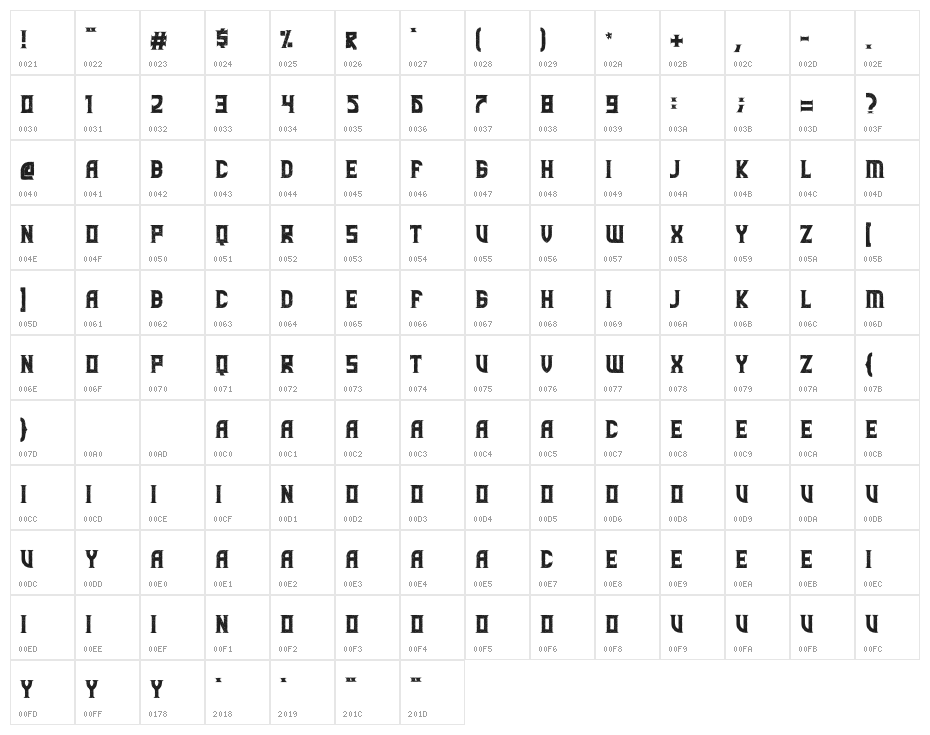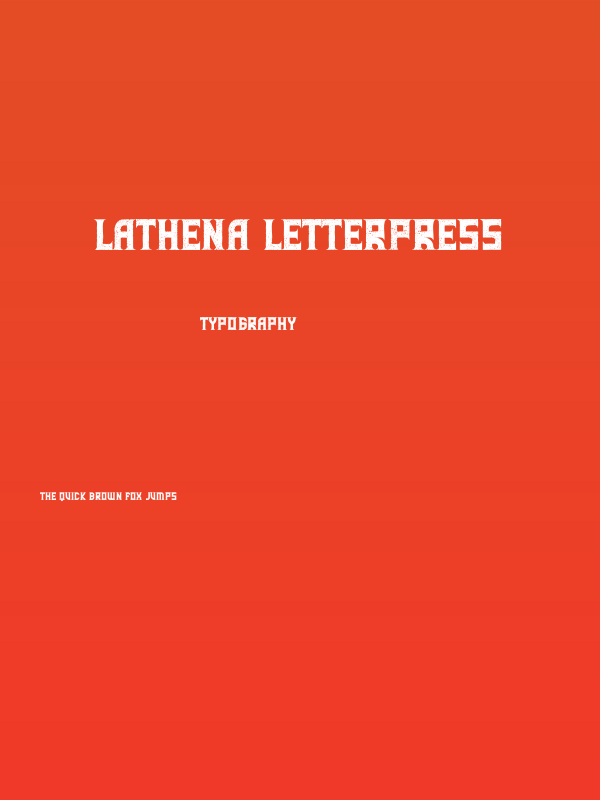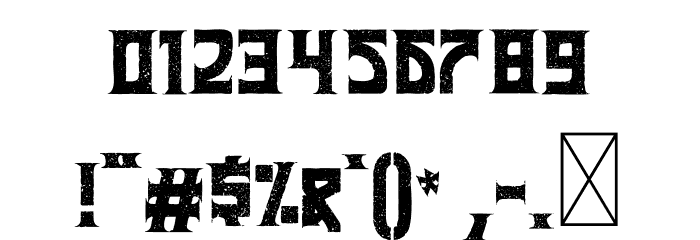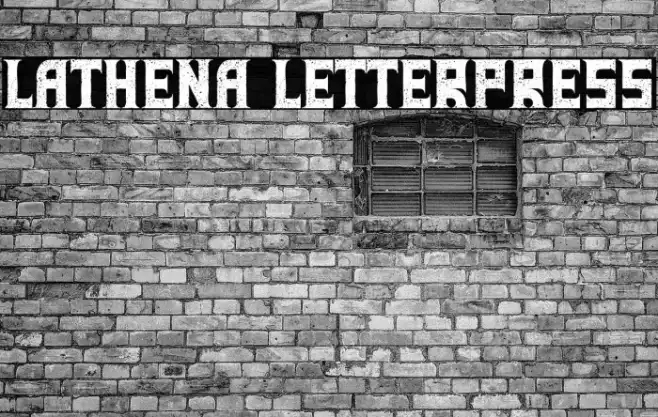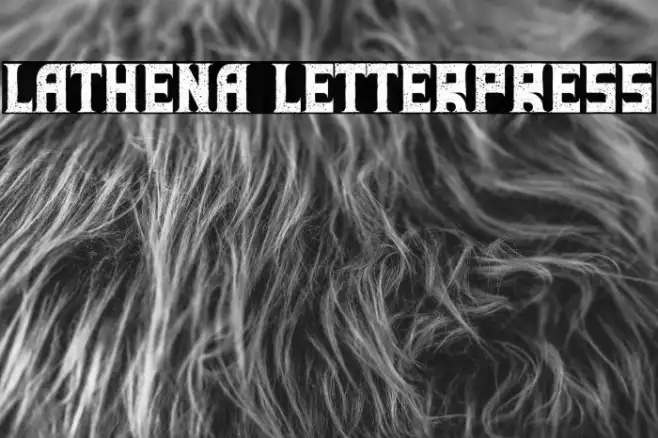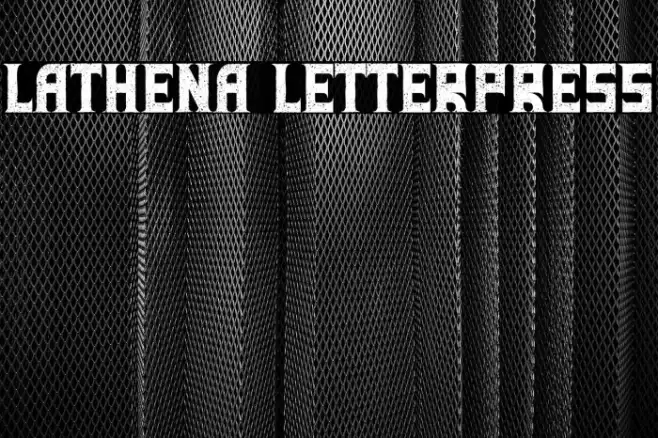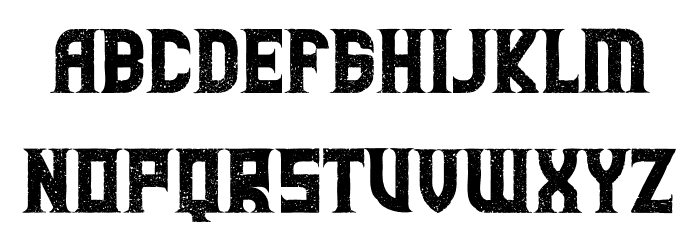
Lathena Letterpress Font
Lathena Letterpress Description
This font features a bold, distressed style with a vintage letterpress appearance. Each character is designed with a textured, worn effect, giving it a rustic and handcrafted feel. The uppercase and lowercase letters maintain a consistent weight, while the numerals and special characters complement the overall aesthetic. The font's unique texture and bold presence make it ideal for projects that require a touch of nostalgia or a handcrafted look. Its distinct style is reminiscent of old printing techniques, making it perfect for designs that aim to evoke a sense of history and authenticity.
| Proposed Projects | Ideal for vintage posters, branding, packaging, and any design requiring a rustic, handcrafted look. |